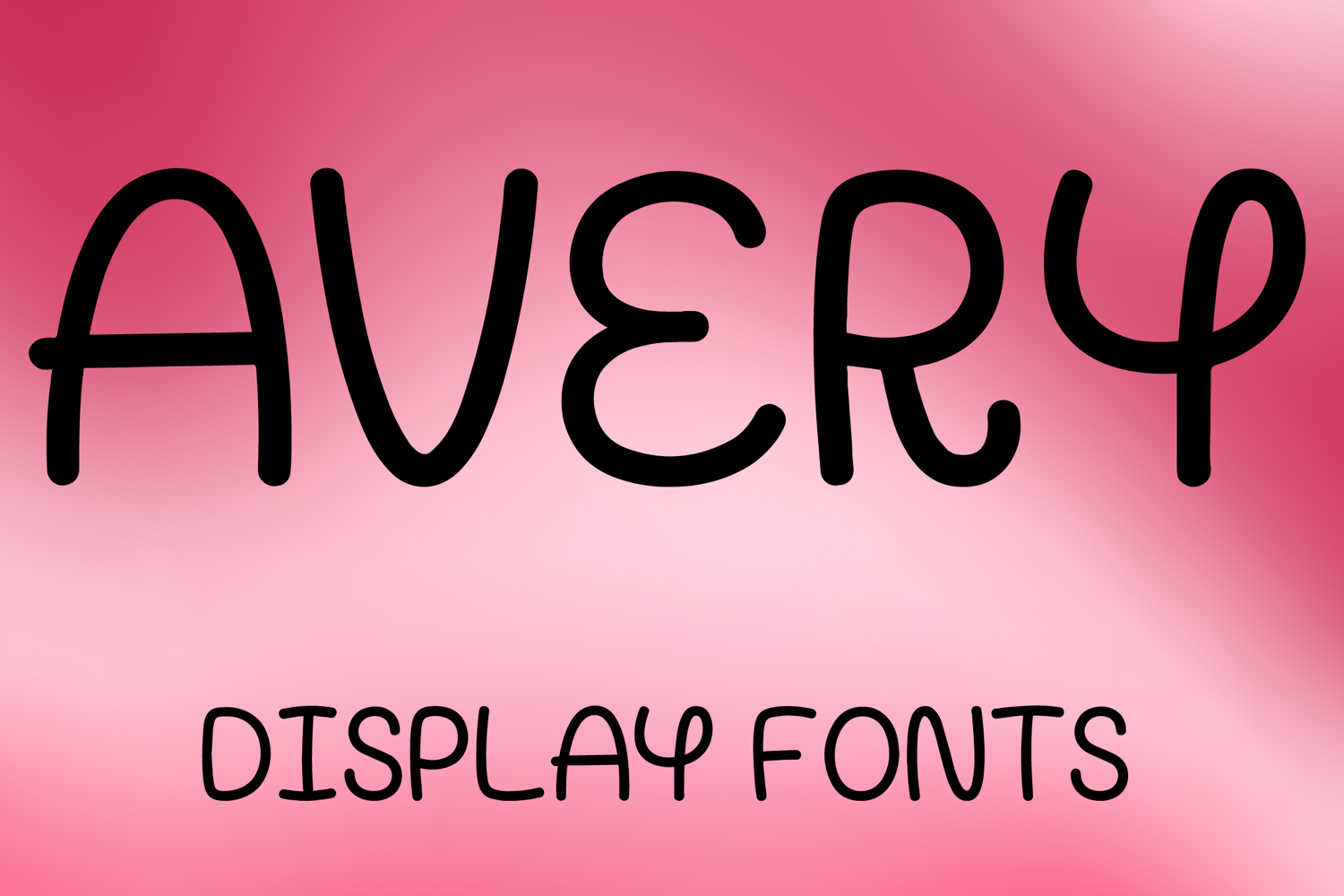
AVERY
AVERY is a playful display font with a whimsical hand-drawn style and soft artistic charm. Its uppercase letterforms feature smooth rounded strokes, quirky curves, and slightly uneven details that create a cheerful, friendly, and eye-catching look. Designed with uppercase letters A–Z and numbers 0–9, AVERY is perfect for branding, posters, packaging, invitations, logos, social media graphics, and creative projects that need a fun and memorable statement.